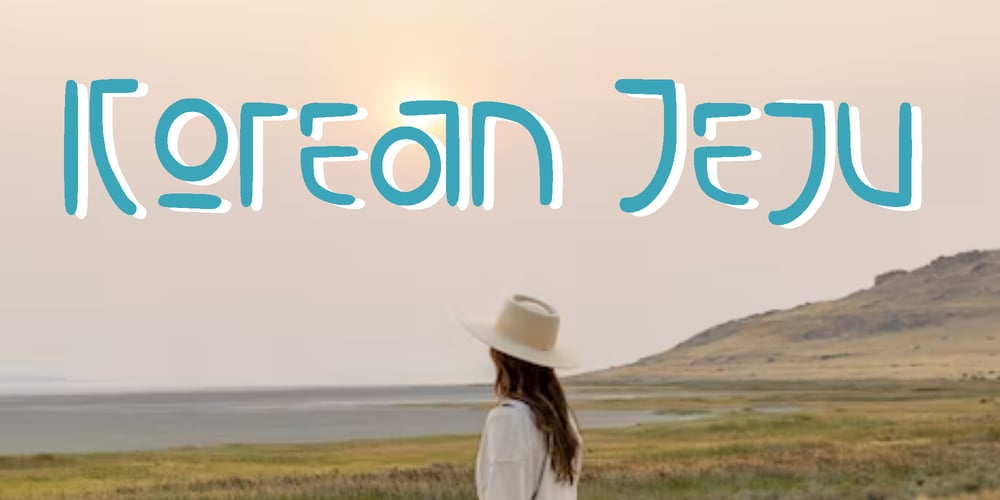
KoreanJeju Font Family was designed by bsmbang wisudyantoro and published by Beewest Studio. KoreanJeju contains 1 styles and family package options. Korean Jeju Font, is a cool and modern display font and a great companion for your Korean-themed designs. It’s perfect for movie posters, greeting cards, social media content, youtube videos, even logo design, etc.